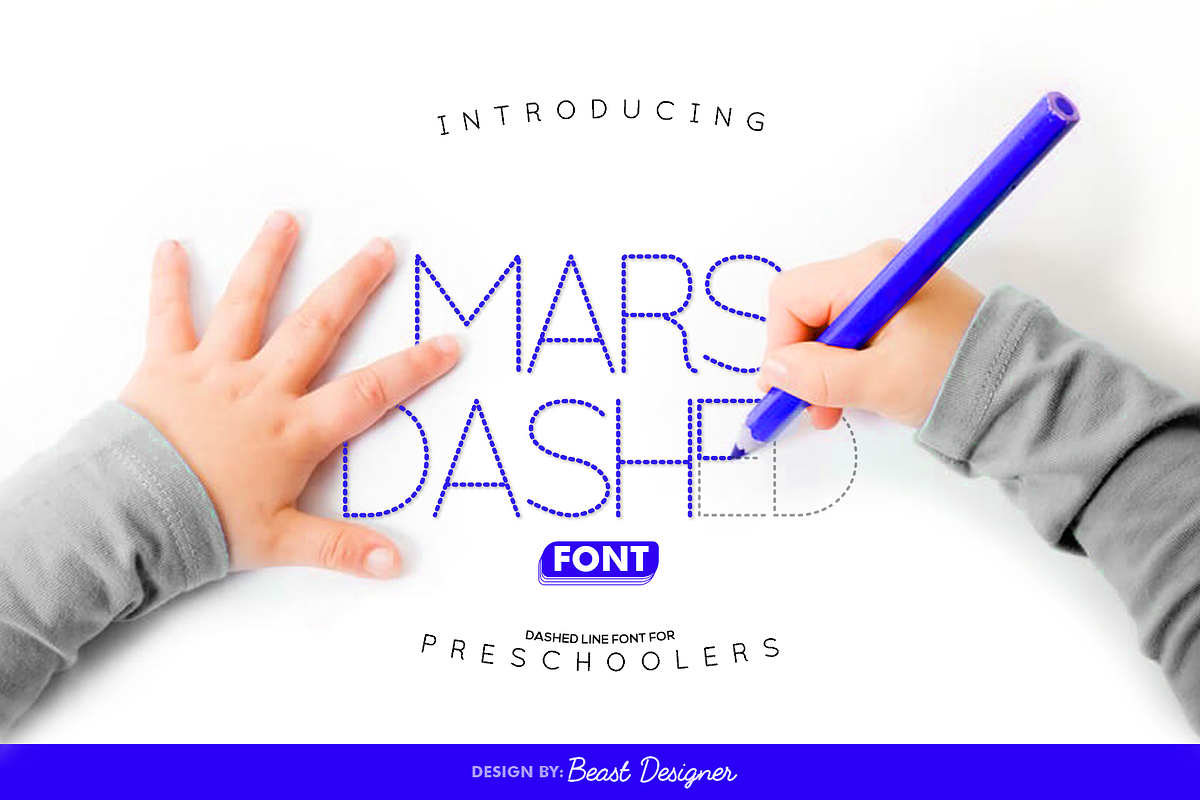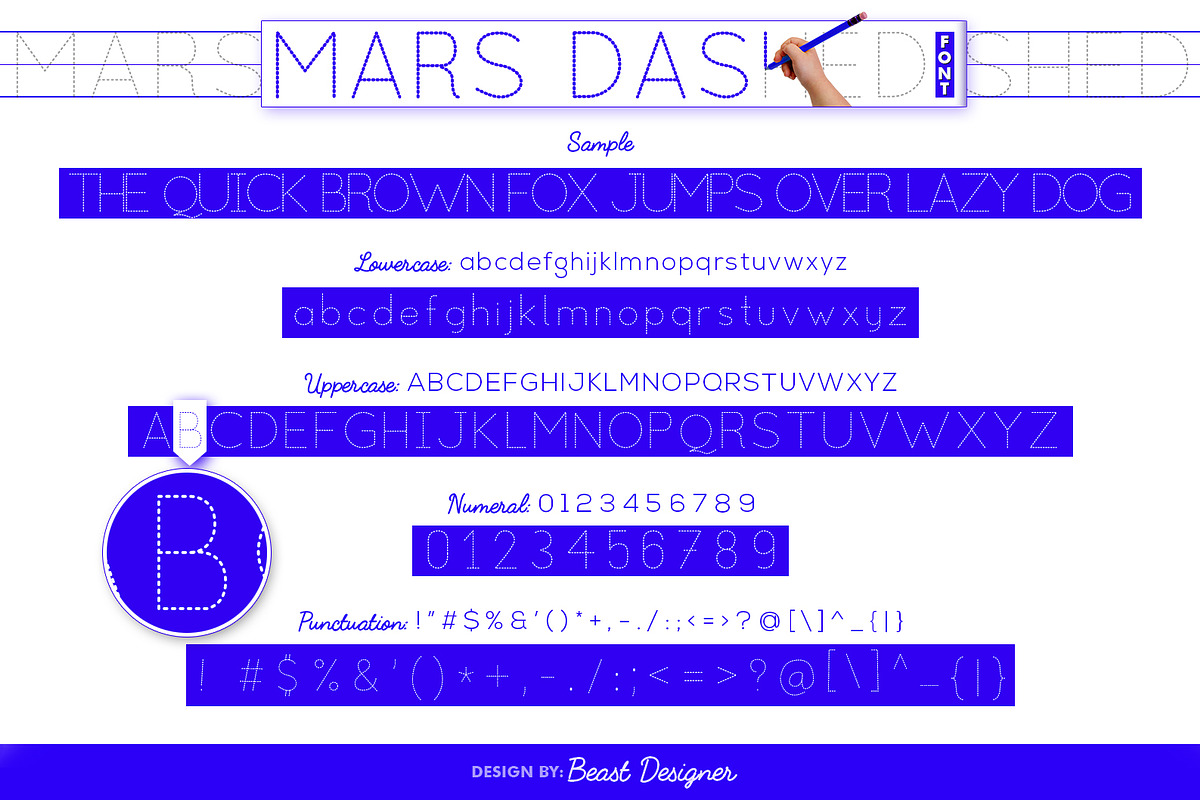
Mars Dashed
Mars Dashed is a modern display font that stands out with its distinctive construction of tiny dashes. This unique approach gives it a minimalist yet eye-catching aesthetic. Ideal for headlines, graphic design elements, and branding projects where a touch of originality is desired.